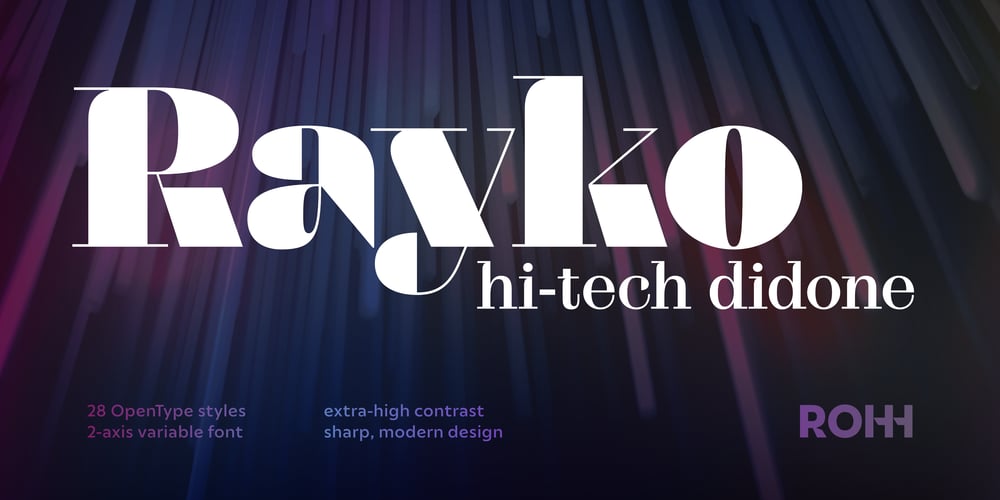
Rayko Font Family was designed by Roch Modrzejewski and published by ROHH. Rayko contains 29 styles and family package options. Rayko’s a contemporary didone with attitude, pushing classic forms into a distinctly futuristic feel. Its contrast is cranked to the max, and every letter shape emanates sharpness and precision. With abrupt ball terminals and bold strokes, Rayko cuts through the clutter like a laser.This is the typeface that belongs in high-tech editorials, forward-thinking magazines, and digital brands ready to turn up the volume.Key Features• 28 styles (7 weights)• cutting-edge variable font technology (2-axis)• 4 optical sizes• 550+ glyphs• Extended Latin language support